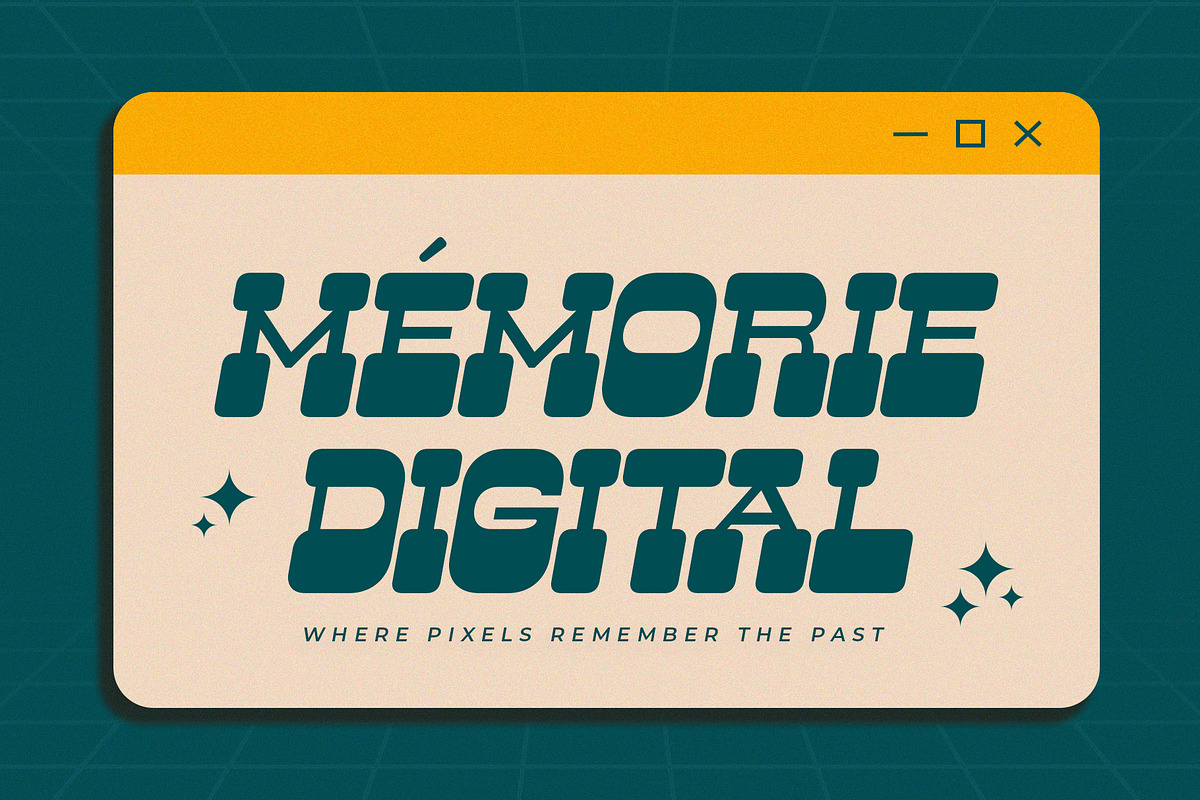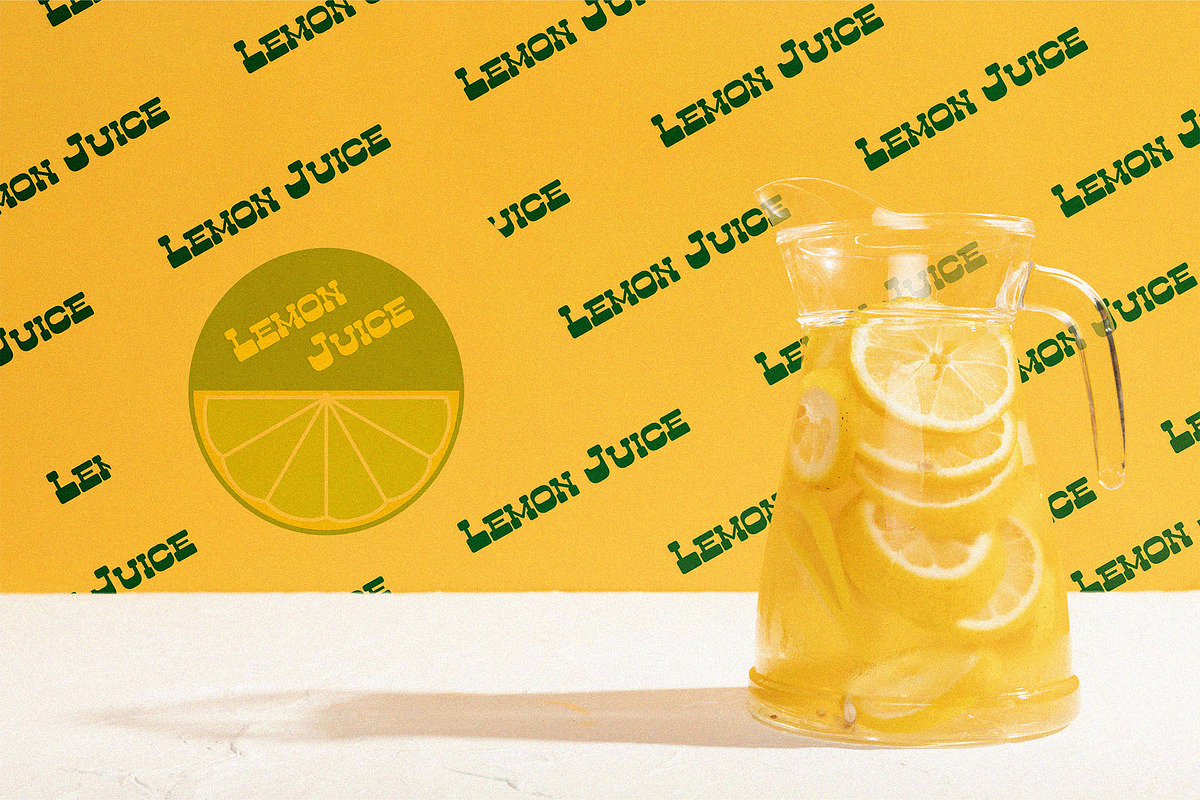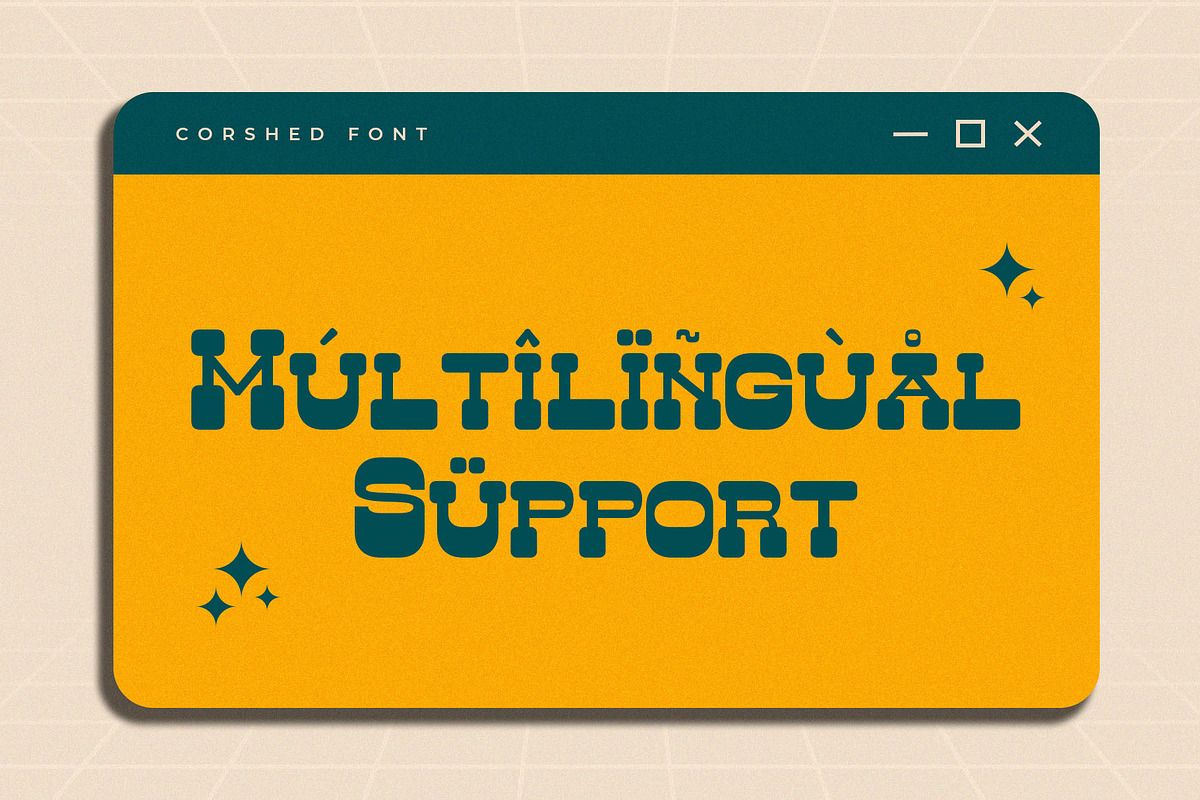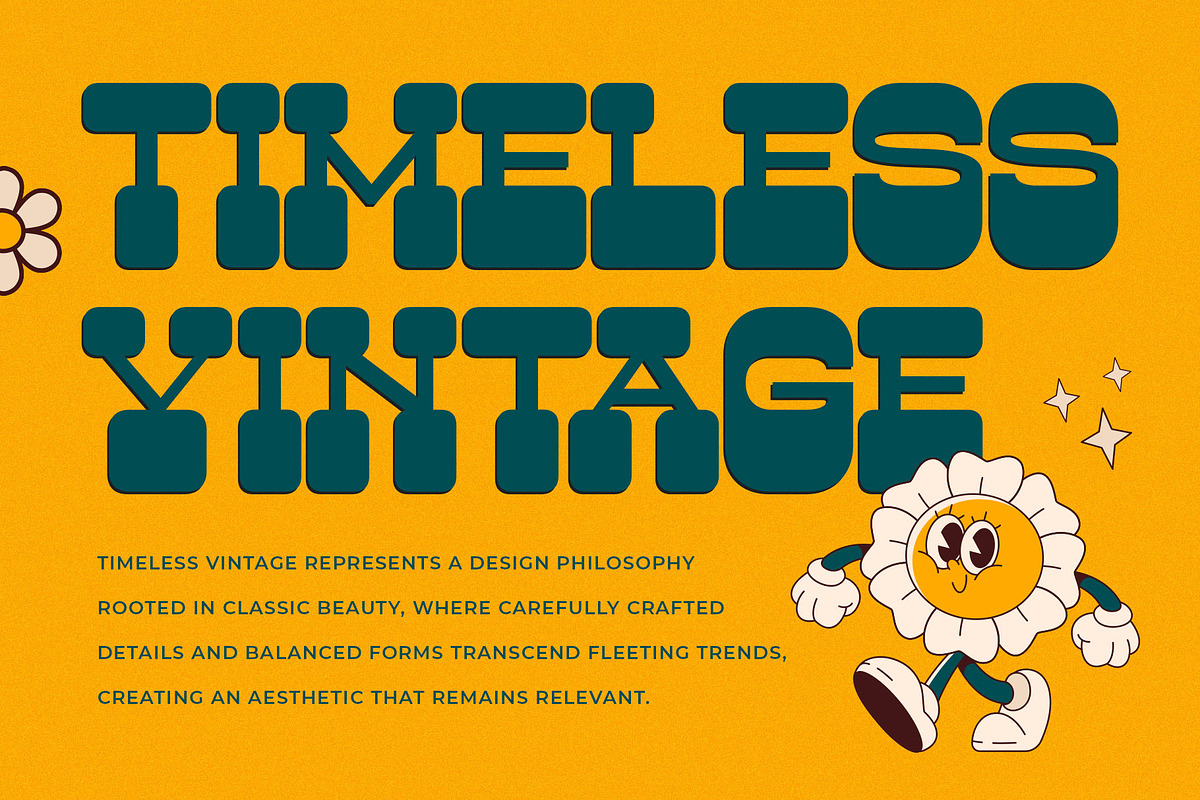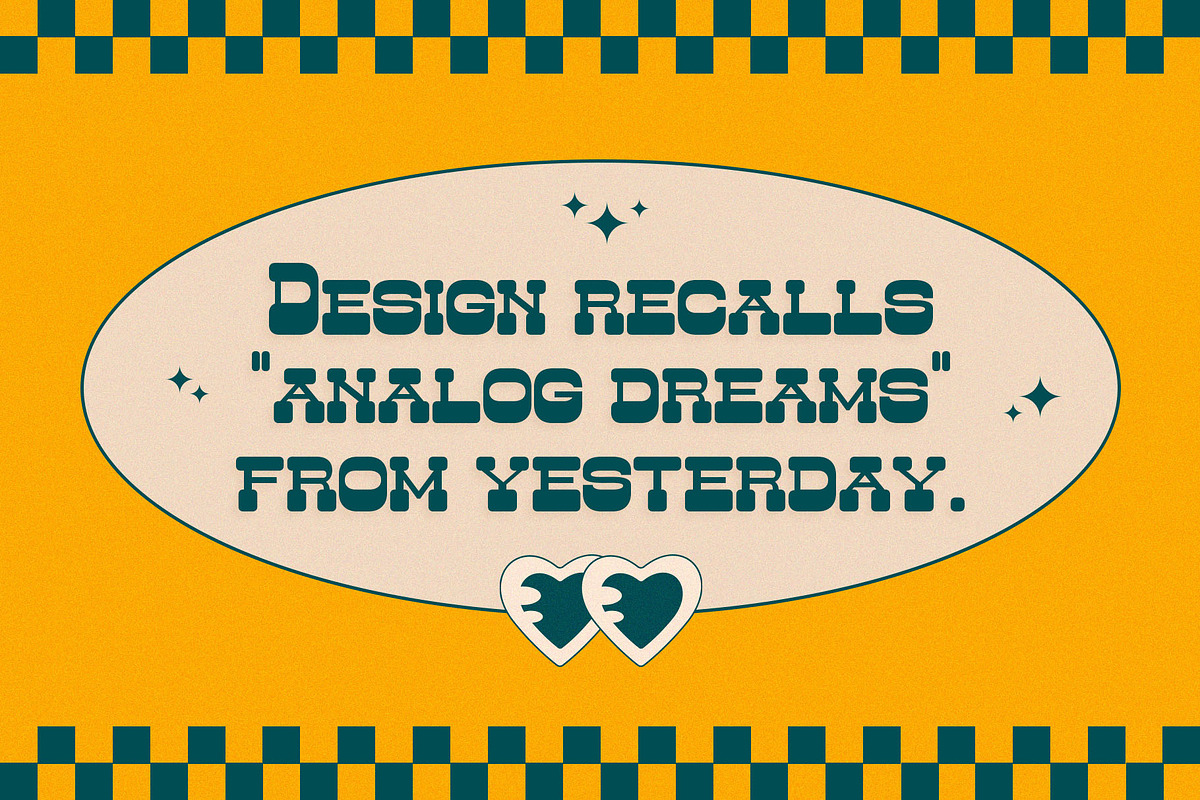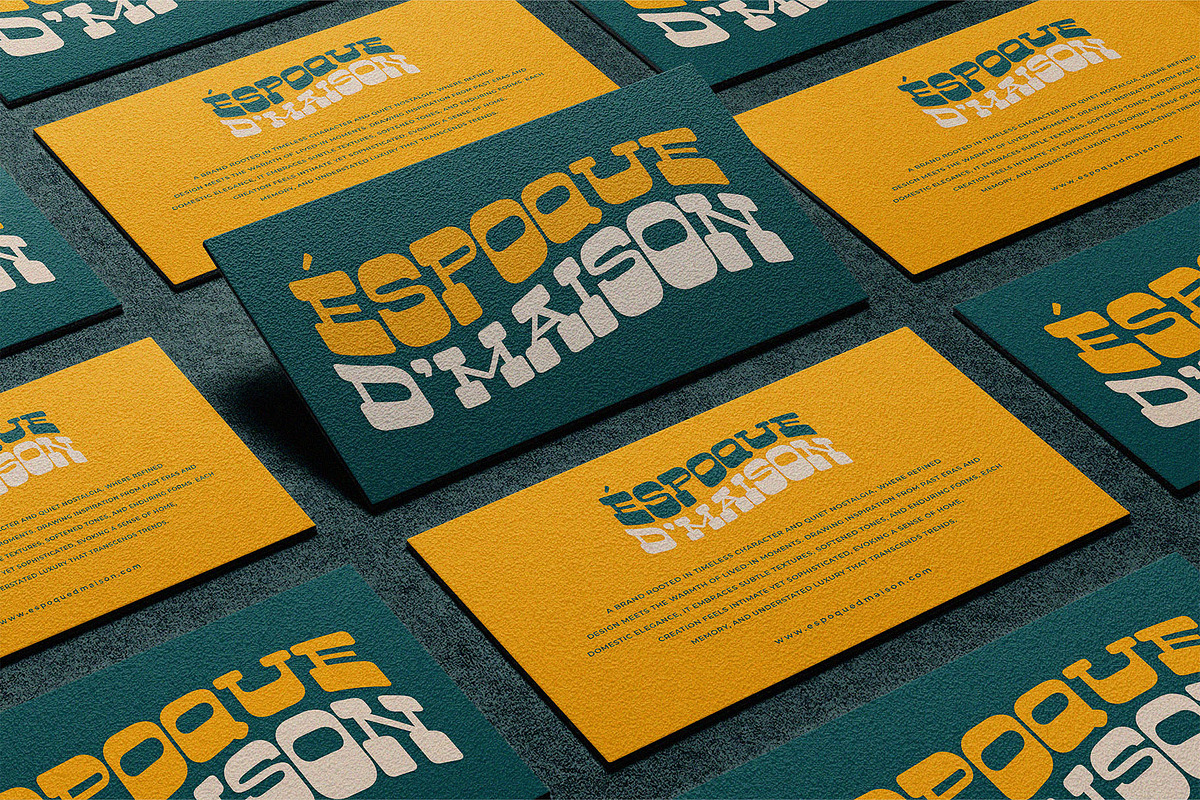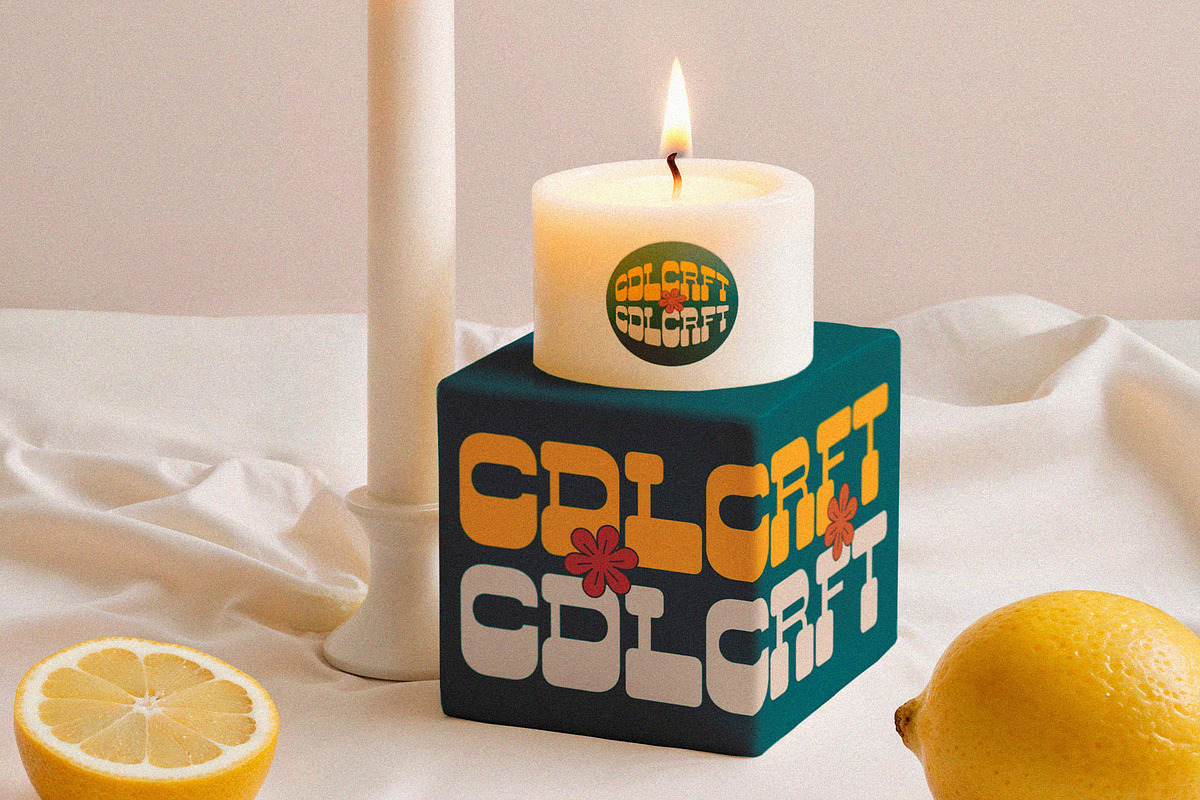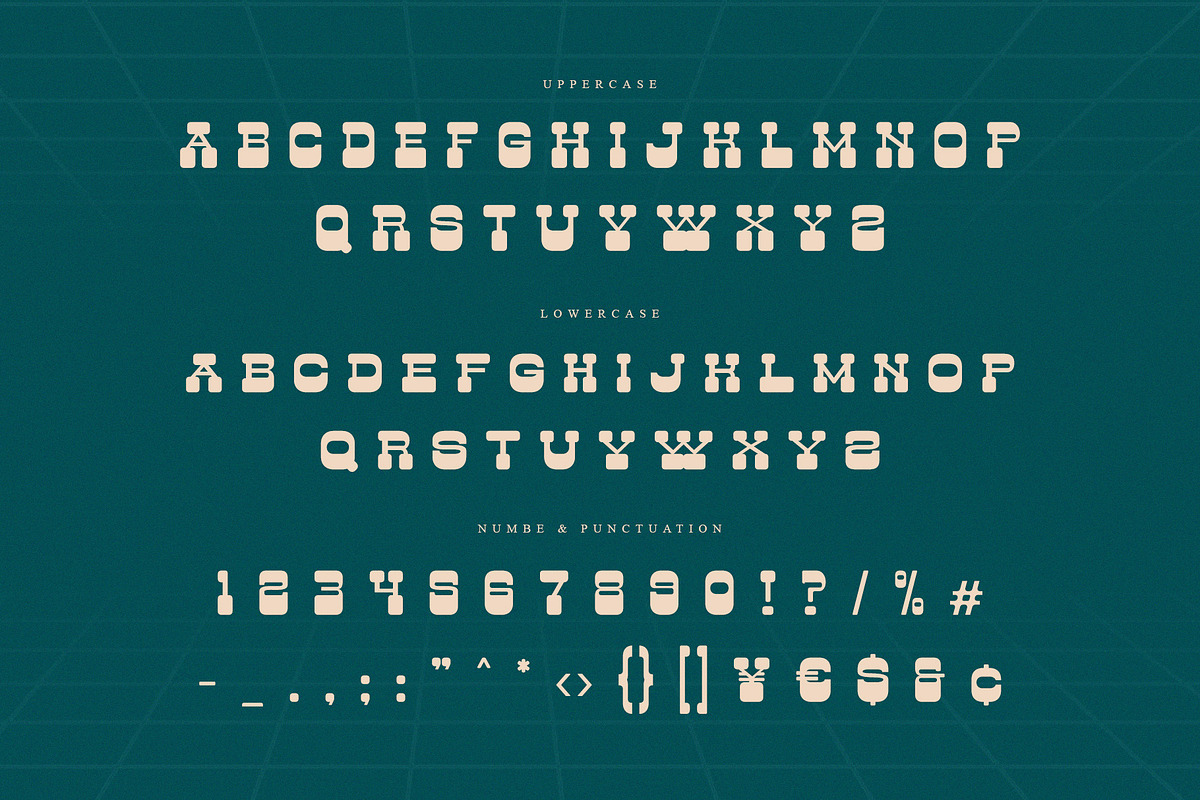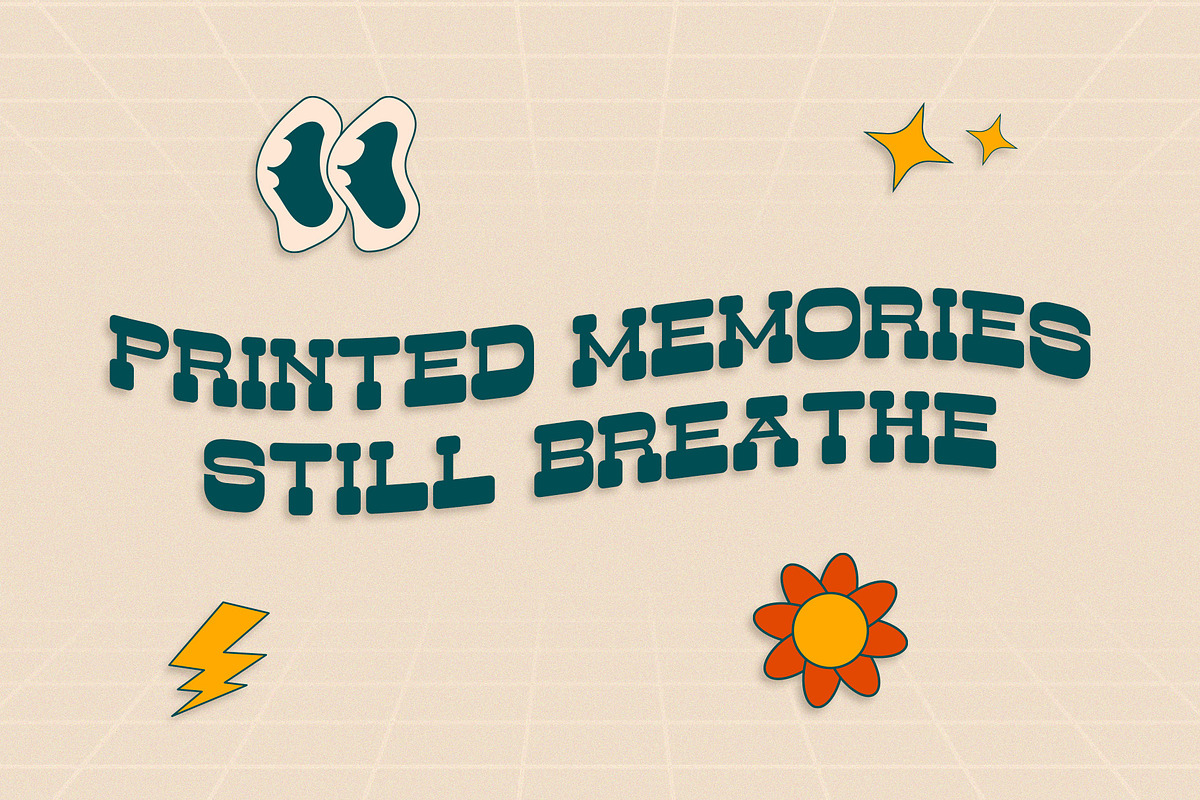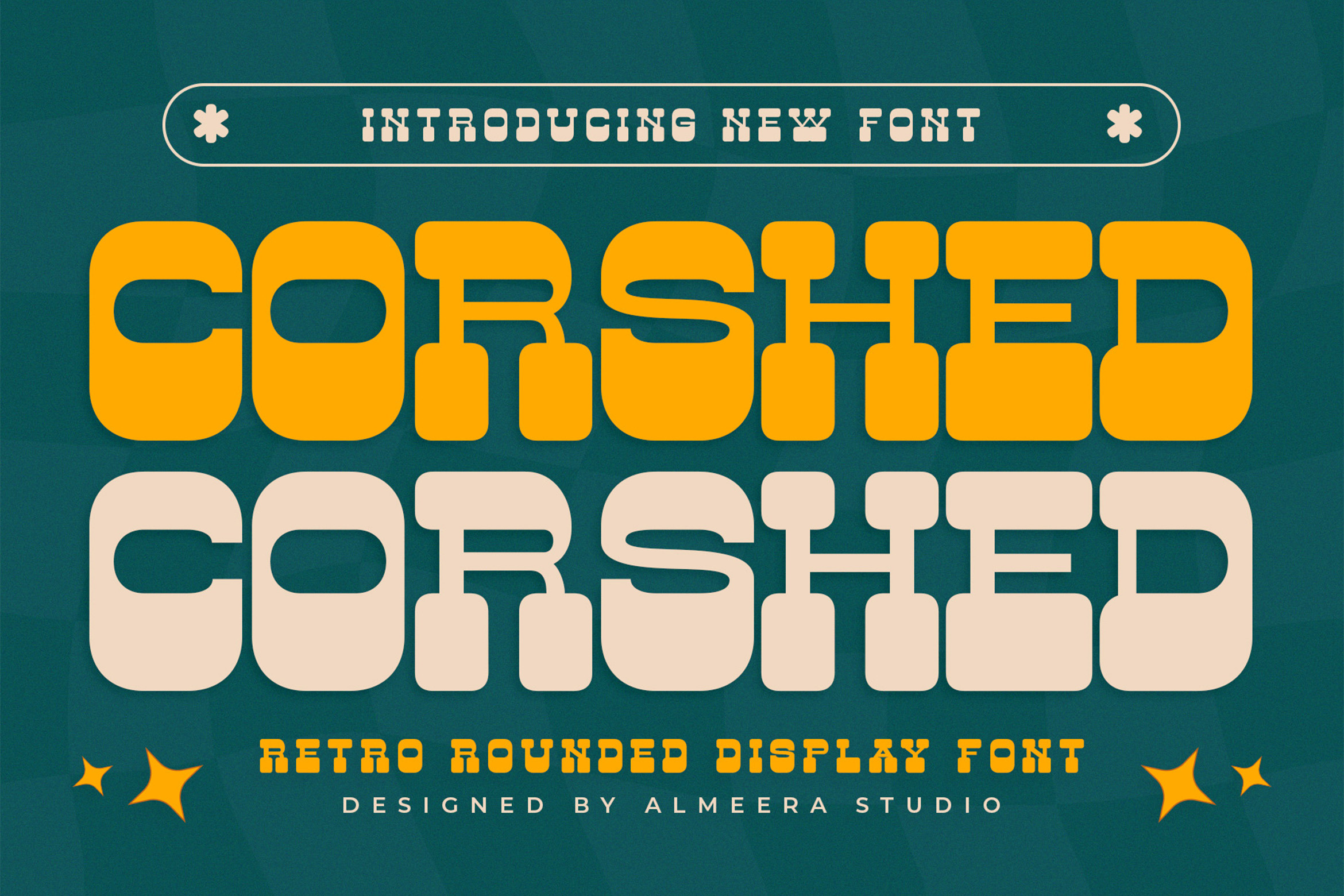
Corshed – Retro Display Font
Corshed is a retro rounded display font that combines bold structure with soft, playful curves. Inspired by vintage typography and classic retro aesthetics, Corshed brings a warm and approachable character while maintaining strong visual impact.
Its chunky letterforms and rounded edges make it perfect for eye-catching headlines, branding, logos, posters, packaging, social media graphics, and creative visual compositions. Corshed delivers a nostalgic yet fresh feel, making it suitable for both retro-inspired and modern playful designs.
Corshed is designed for creatives who want a bold display font that feels fun, distinctive, and full of personality.
- Numbers, fractions
- Punctuation and symbols